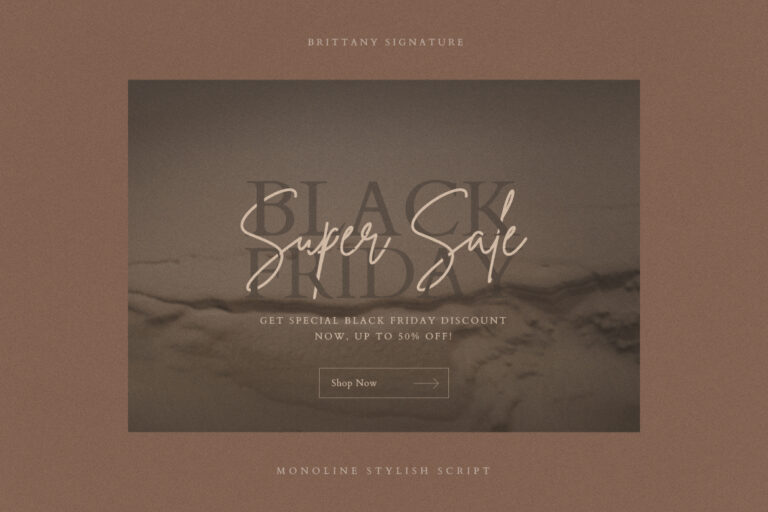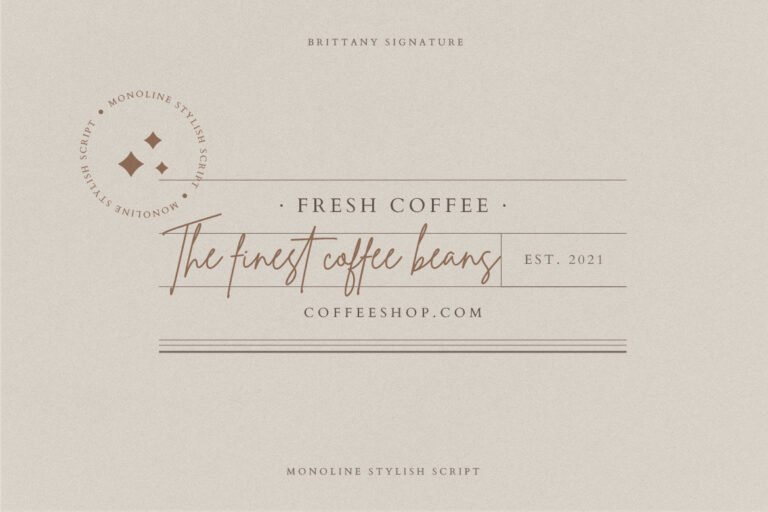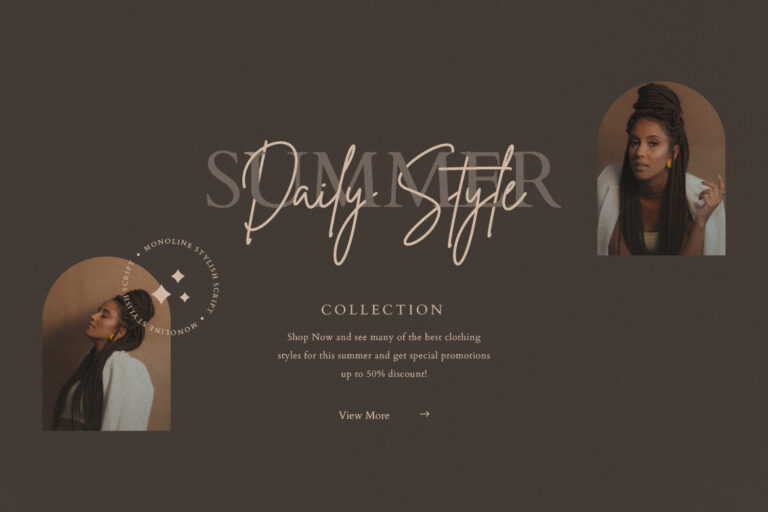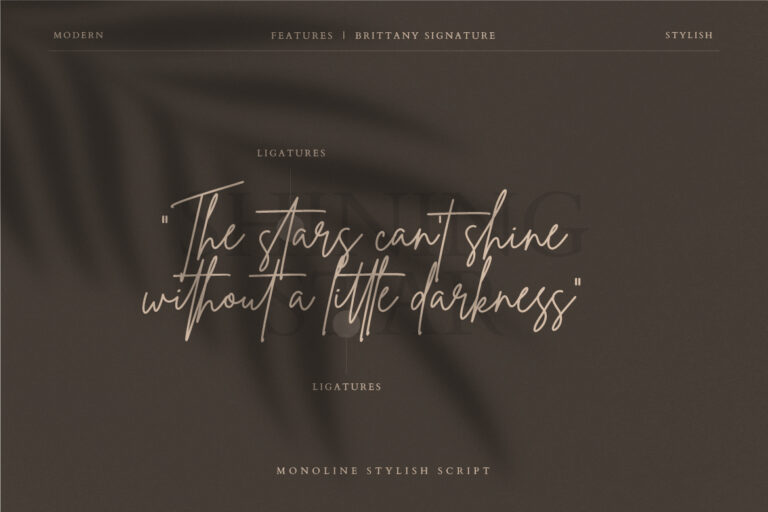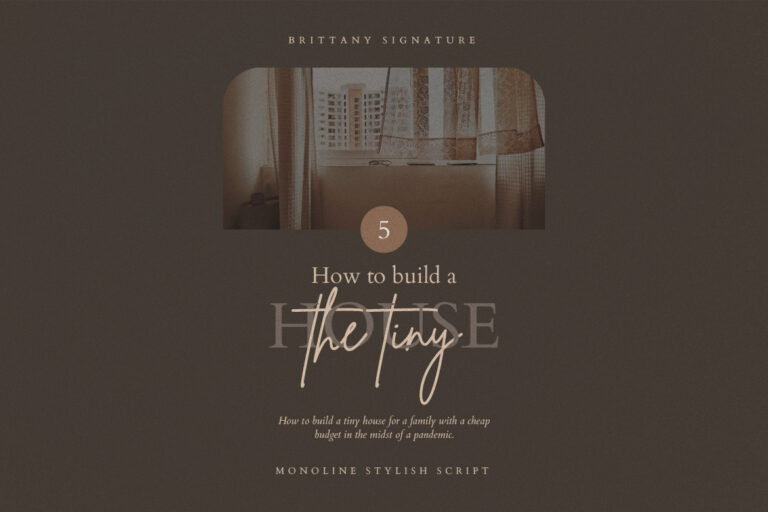
Brittany Signature Script consists of a fashionable sophisticated signature-style script with its own unique curves and an elegant inky flow. People usually use Brittany font as an elegant touch and signature-like font.
Moreover, the stunning Brittany font is ideally suited for any project requiring a touch of handwriting flair. For example, you can apply it to photography, watermarks, social media posts, advertisements, logos and branding projects, invitations, product designs, labels, stationery, wedding designs, product packaging, special events, or any other context that demands a handwritten aesthetic.
Furthermore, when selecting a font for your design, the features significantly influence its legibility. Although the Brittany font boasts a distinctive signature style, it also presents a decorative and curvy form. Additionally, it maintains an elegant yet still legible appearance.
Thatâs why many designs keep using Brittany font.
Brittany Signature Script Font